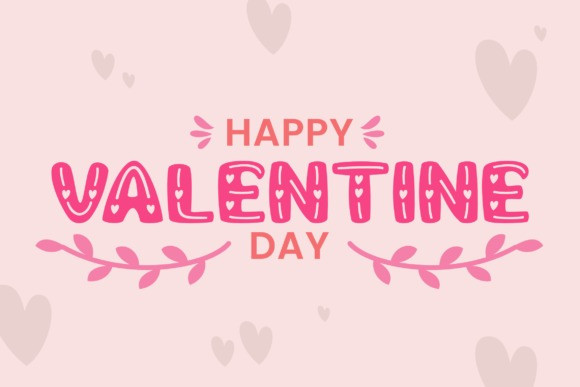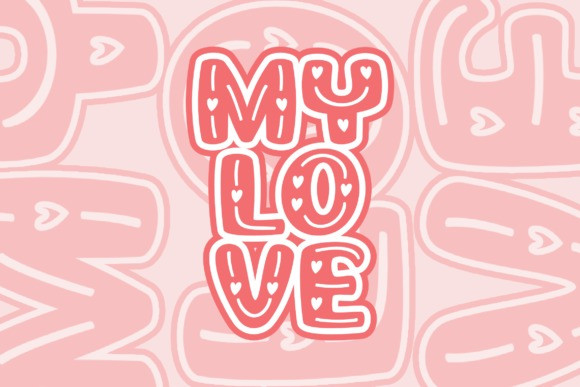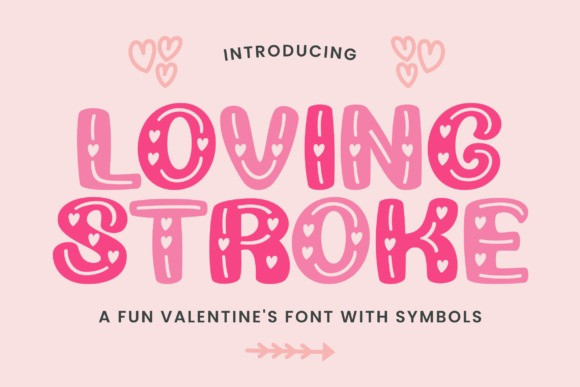
LOVING Stroke Typeface
Loving Stroke Font is a sweet and adorable font. It has decorative uppercase letters and cute lowercase dingbats full of love symbols and elements. This unique, lovely combo will help you create unique Valentine’s Day designs.